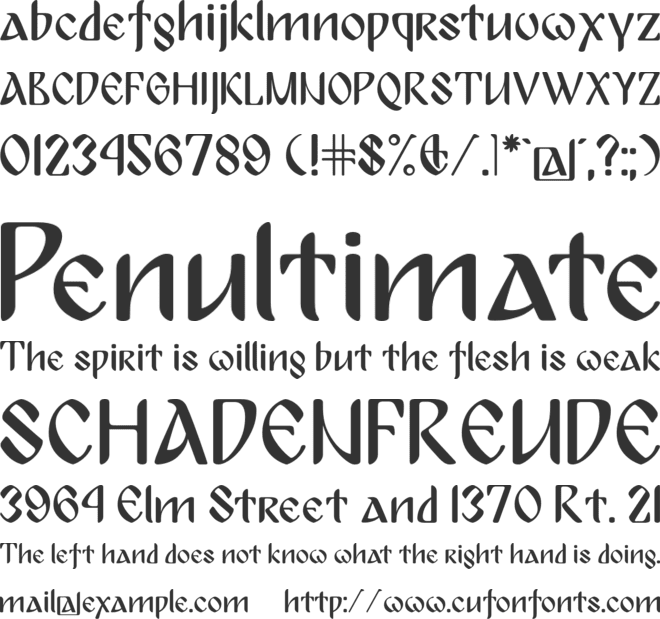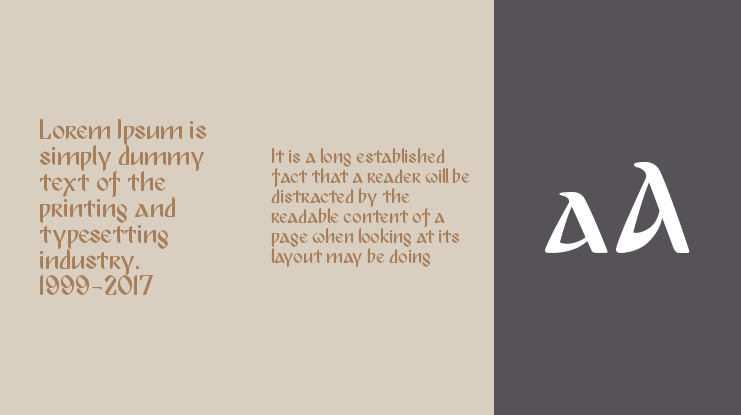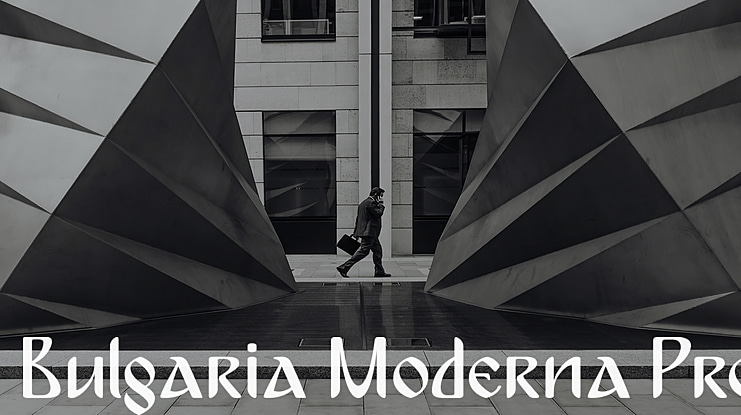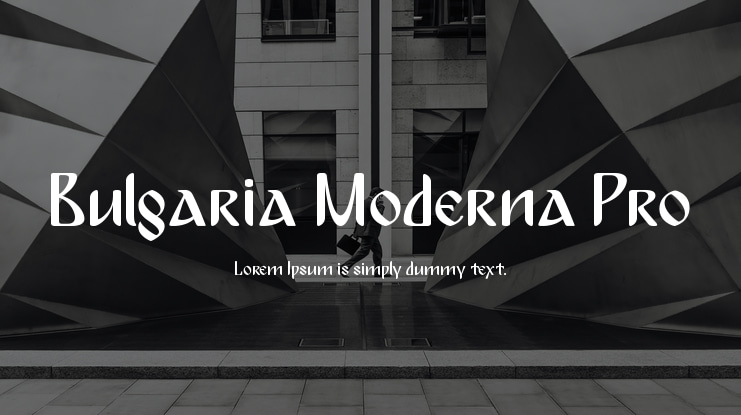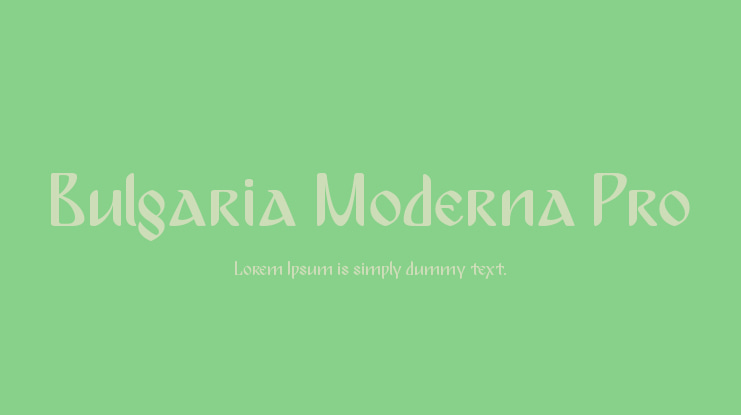
Bulgaria Moderna Pro Font
Yanko Tsvetkov
Bulgaria Moderna is an OpenType digital font inspired by the Early Cyrillic script developed during the 10th Century in the Preslav Literary School. The font supports all modern Cyrillic, Latin and Greek alphabets. More information and examples can be seen on the official page of the project: http://alphadesigner.com/bulgaria-moderna-font/